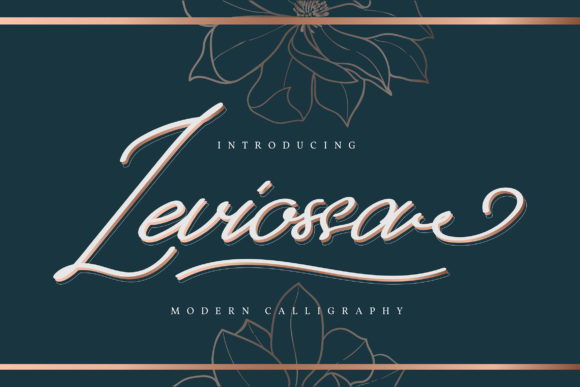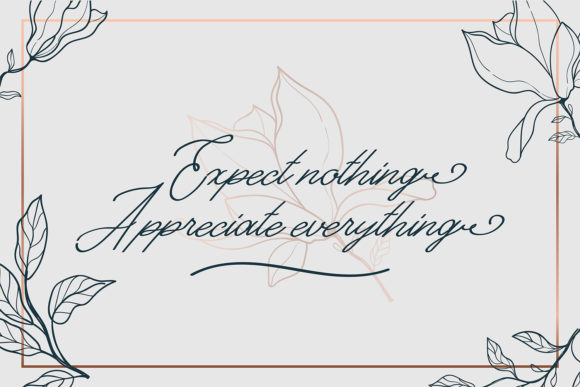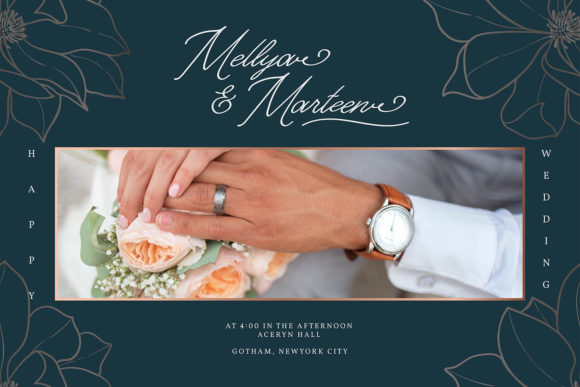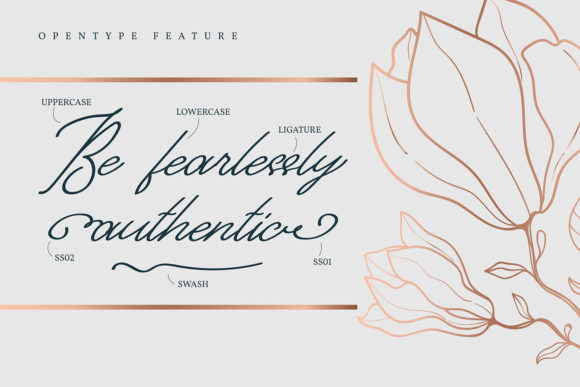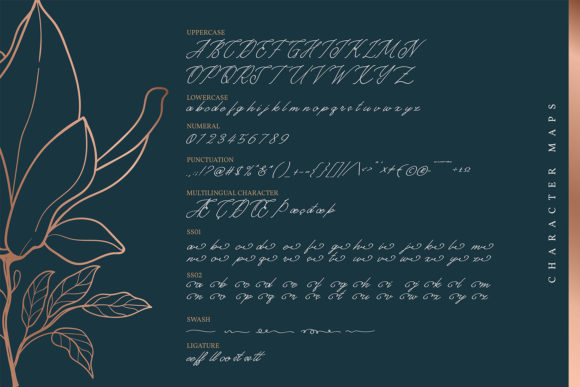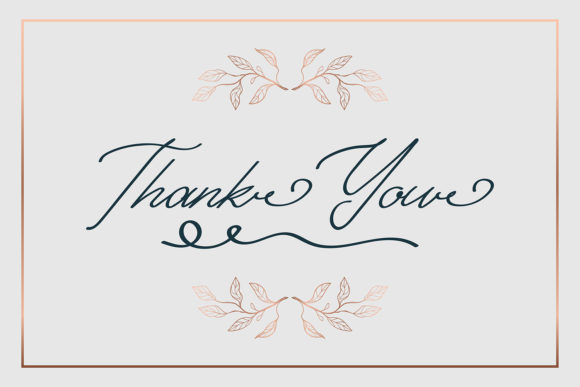
Leviossa Font
About Leviossa Font
Leviossa is an enchanting handwritten font that captivates with its romantic and whimsical charm. This versatile script font is designed to bring a touch of elegance and grace to a wide spectrum of design projects.
Whether you’re creating greeting cards, invitations, headlines, logos, or any other design that requires a romantic feel, Leviossa is sure to make a lasting impression. Its flowing and delicate letterforms evoke a sense of enchantment, making it perfect for projects that aim to create a dreamy and ethereal atmosphere.
With its wide range of applications, Leviossa can be used to add a touch of romance to various design projects. From wedding stationery to branding materials, the font’s versatility shines through, allowing you to create captivating and visually appealing designs.
The beauty of Leviossa lies in its exquisite glyphs and swashes, which can be easily accessed thanks to its PUA encoding. This means you have effortless access to a wealth of decorative elements, alternate characters, and ligatures that will enhance the uniqueness and personalization of your designs.
Embrace the enchanting nature of Leviossa and let it transport your audience into a world of beauty and romance. Its captivating style and attention to detail make it a font that stands out and adds a touch of magic to your projects.
Whether you’re creating heartfelt greeting cards, captivating headlines, or any other design that requires a romantic touch, Leviossa is the perfect choice. Let this font sweep you away with its charm and watch your designs come to life with its ethereal beauty.